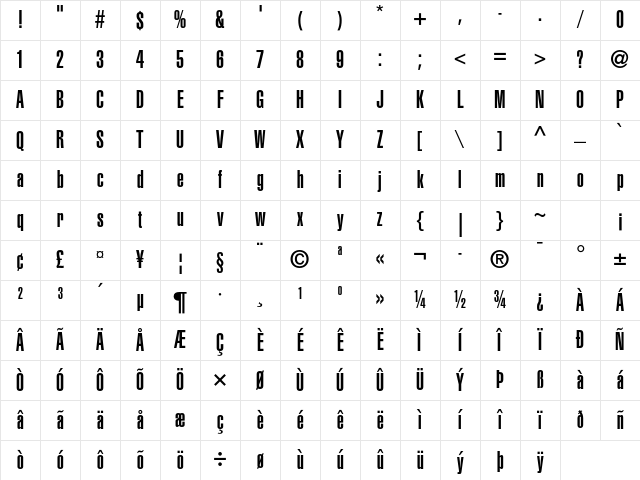
Helvetica LT Std Ultra Compressed
Style: Ultra Compressed
Designer: Max Miedinger
Complete Helvetica LT Std Ultra Compressed glyph index. Displaying only characters natively supported by Helvetica LT Std Ultra Compressed font.
Design Context for Helvetica LT Std
Helvetica LT Std is a composed and adaptable typeface that performs quietly and consistently across a wide range of design contexts. Its slender proportions lend an understated elegance to any composition.